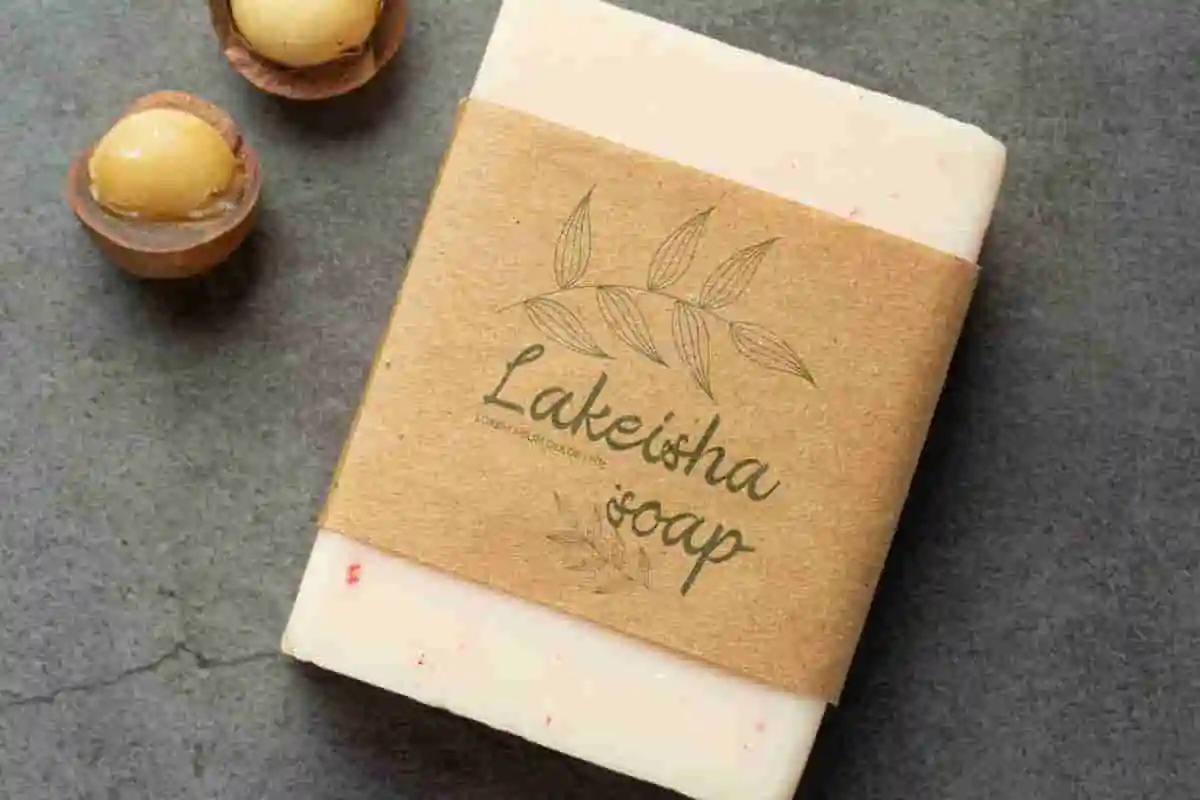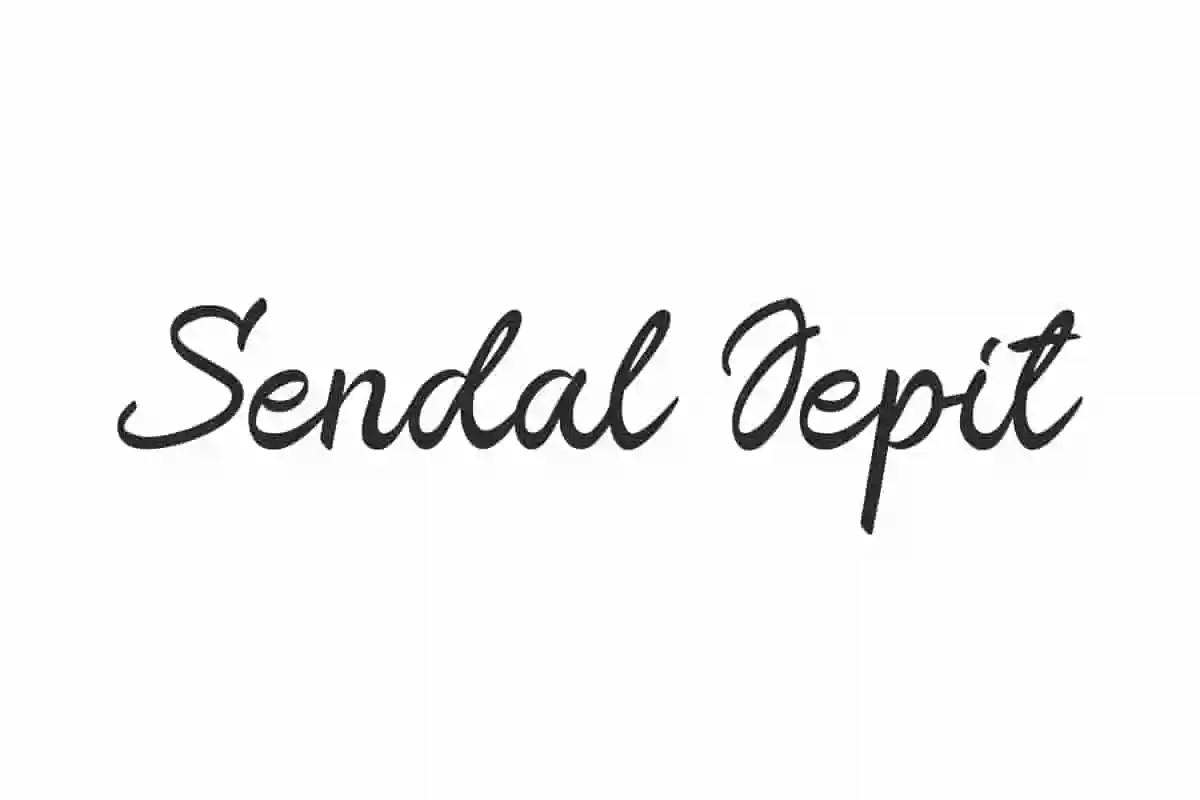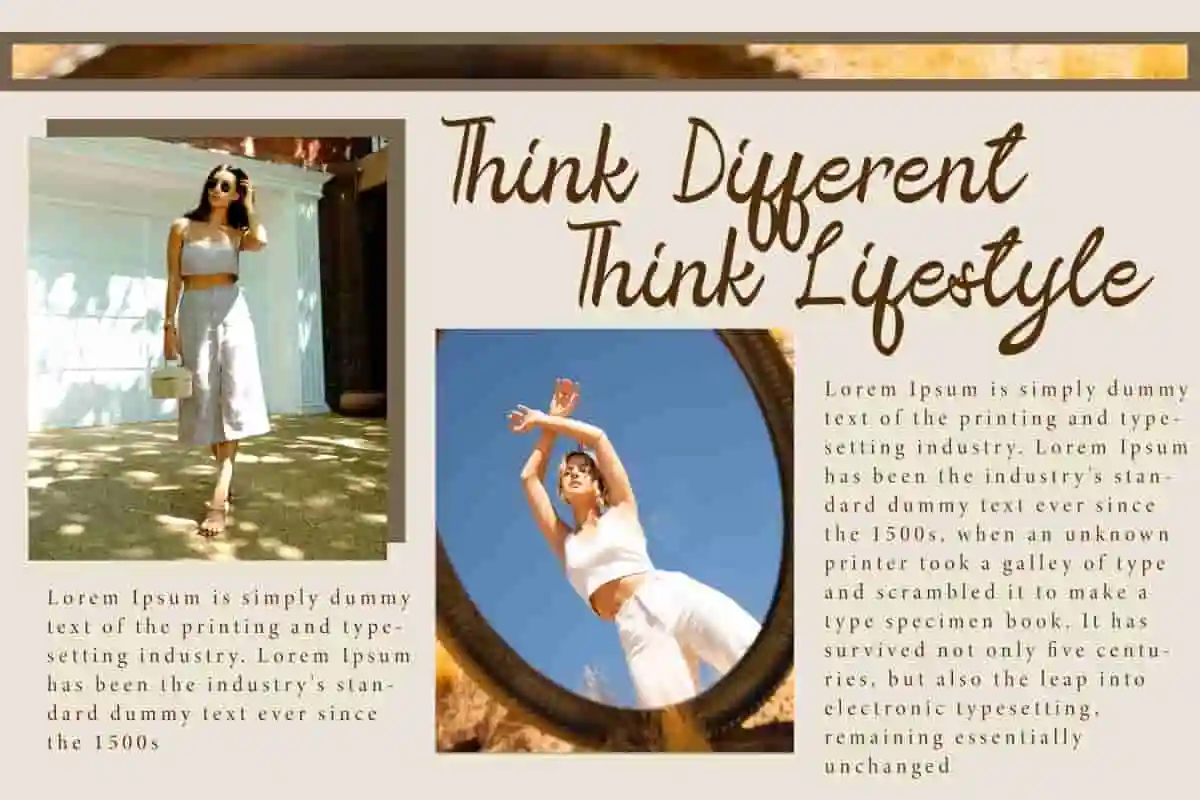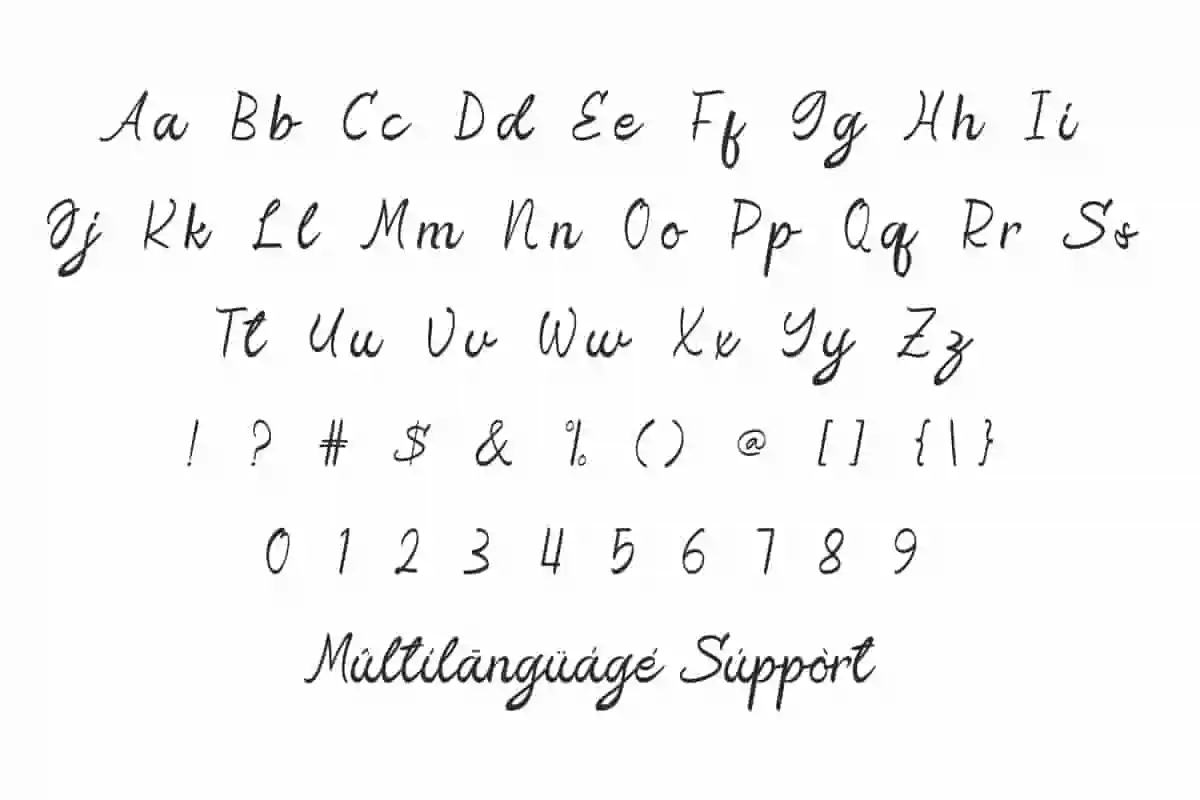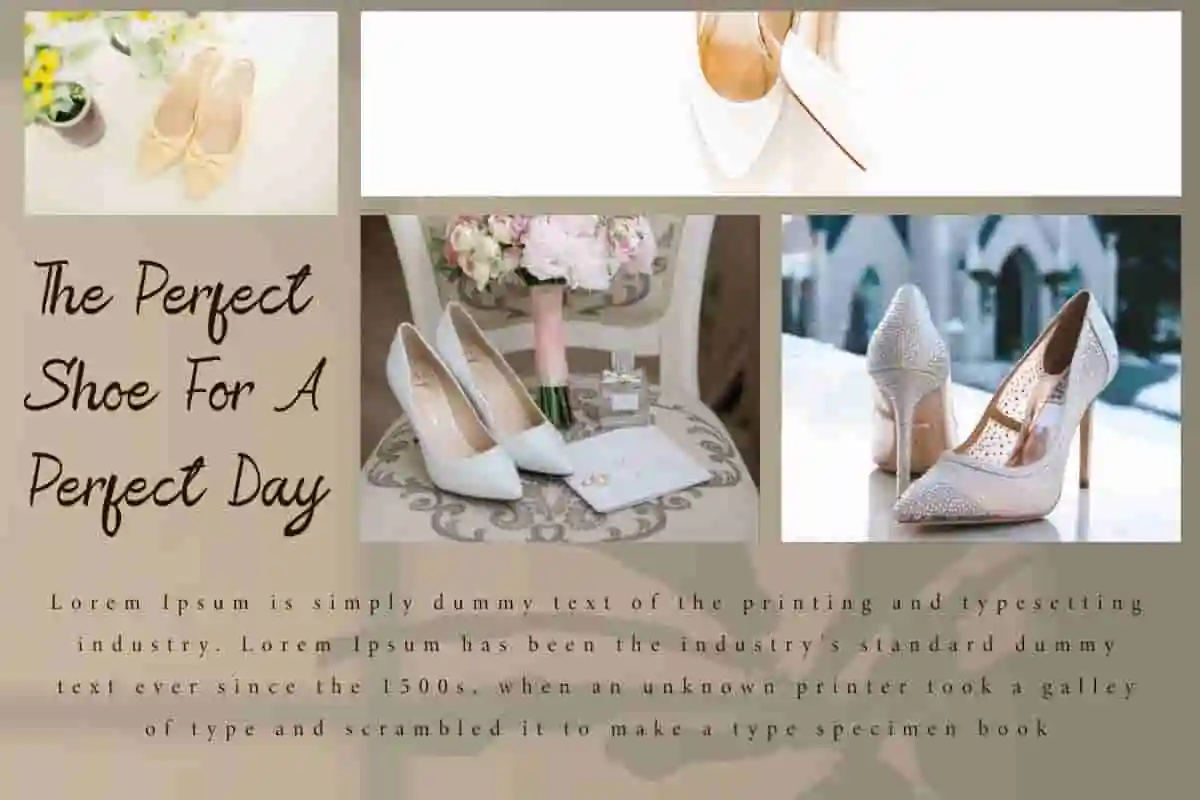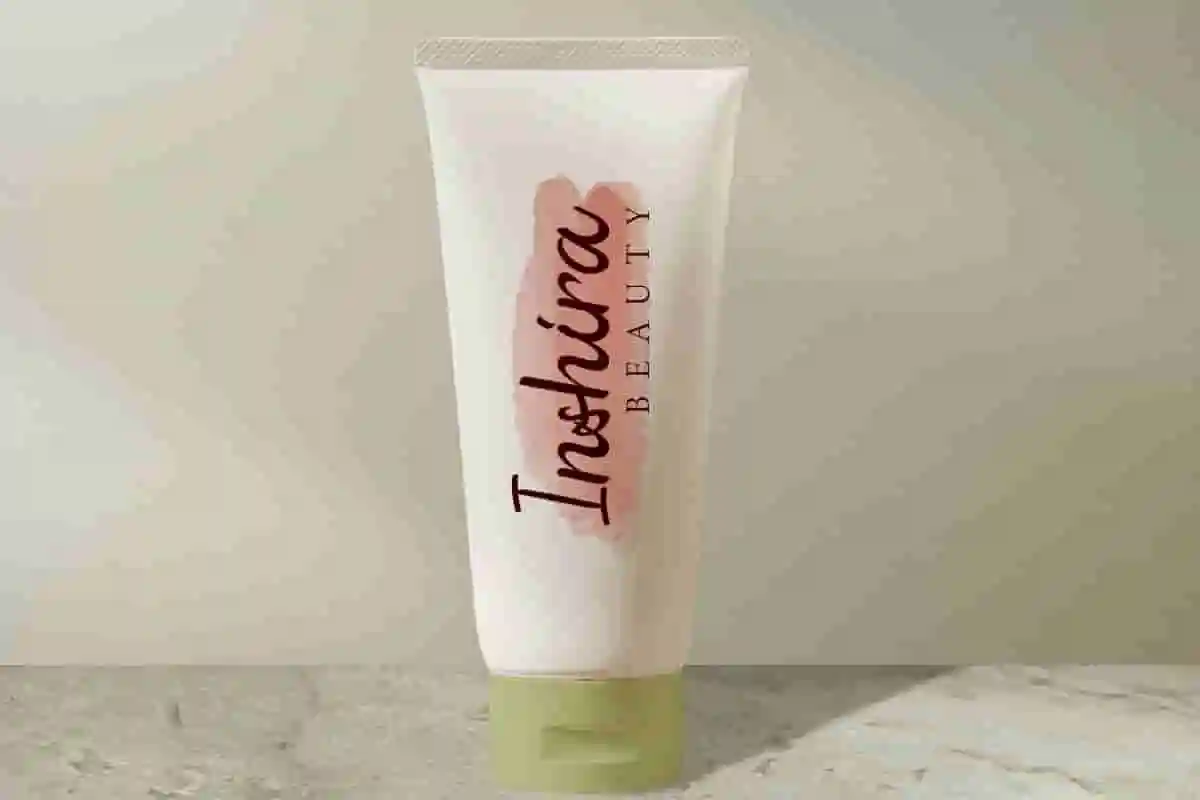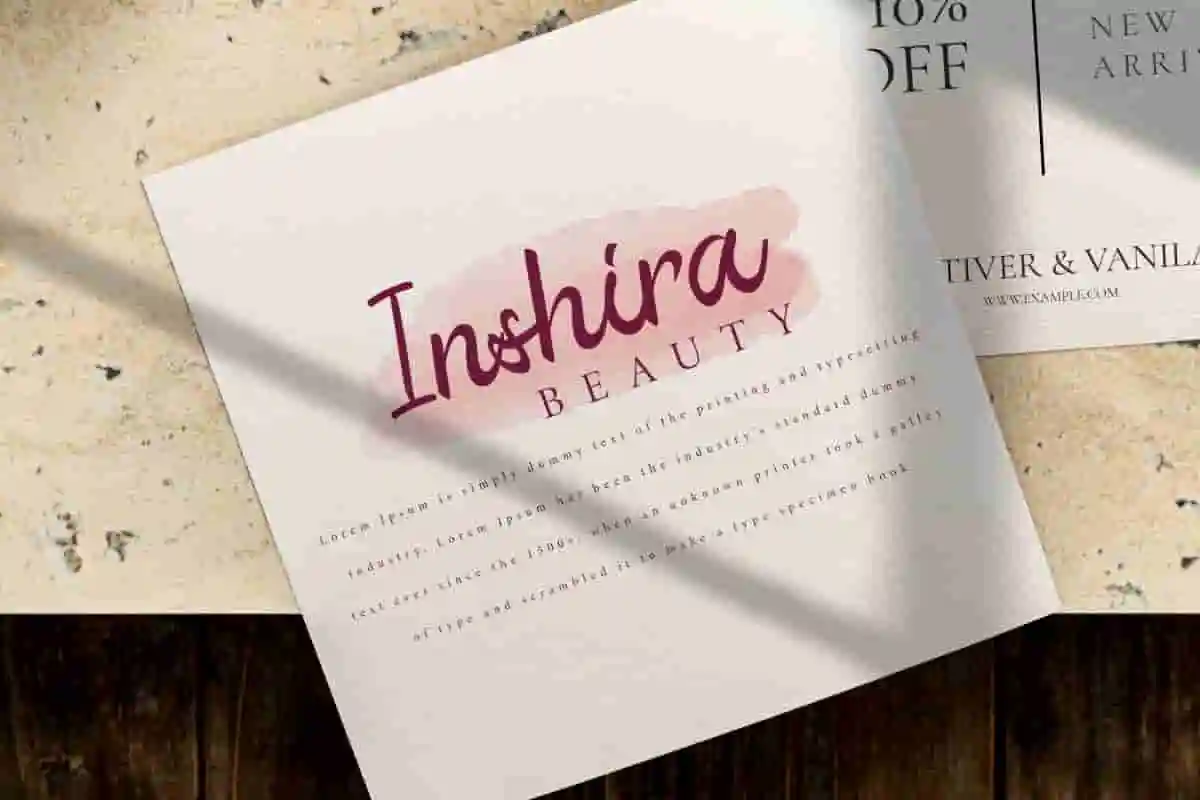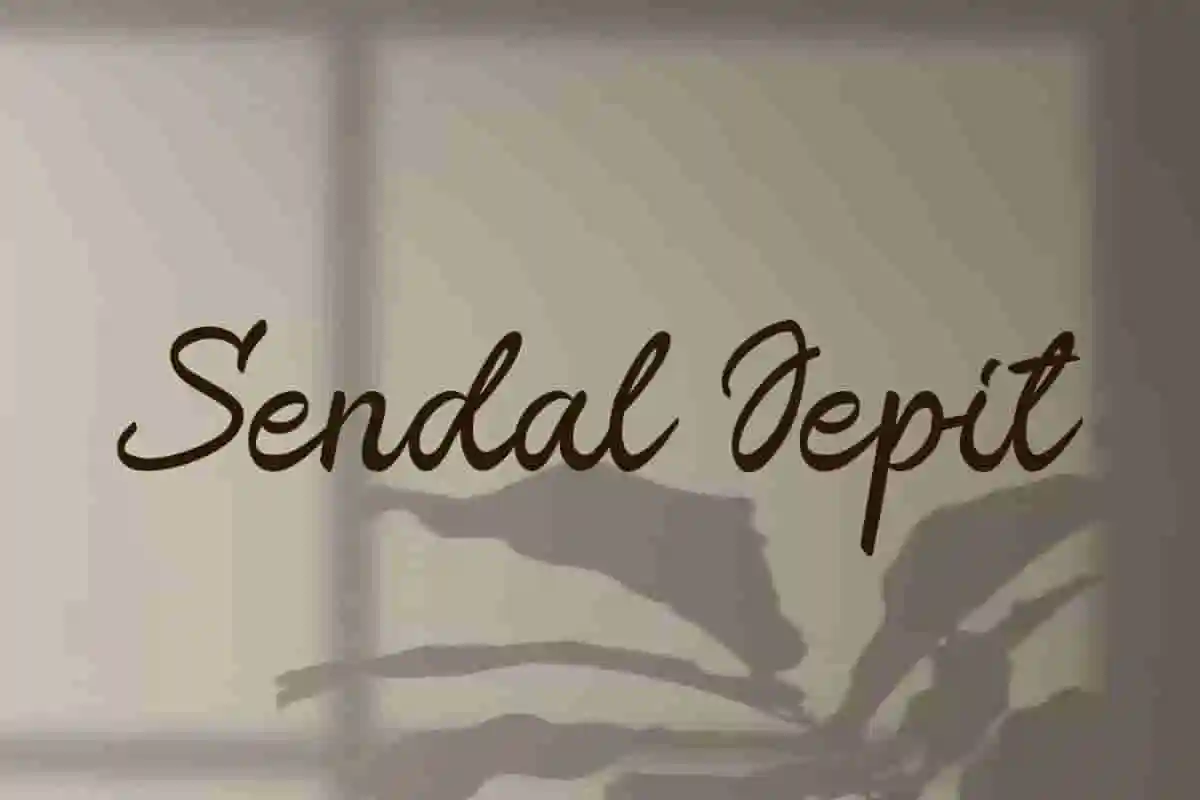
Sendal Jepit Font is a gorgeous handwritten font in a casually written brush script. It gives a clean and modern feel. Perfect for branding, print and digital materials etc.
Sendal Jepit Font is a charming handwritten font with an informal feel. Its letter characters offer flowing text and style connectivity, carefully crafted to enhance your creative designs, such as brand logos, greeting cards, headers, invitations, labels, mockups, packaging designs, product sleeves, stationery, templates, titles, watermarks, websites by adding a touch of authenticity and organic.
Sendal Jepit Font includes a complete set of Basic Uppercase and Lowercase Characters, Numbers, Punctuation Marks and Symbols. This is indeed a spontaneous handwriting that captures the spirit of casual scribbles. Can be used for various types of your project needs, such as bridal boutique, cafe, crafts, fashion, home furniture, organic handmade soap manufacturer, restaurant and more. It also pairs well with serif or sans serif which will make the appearance even more perfect.